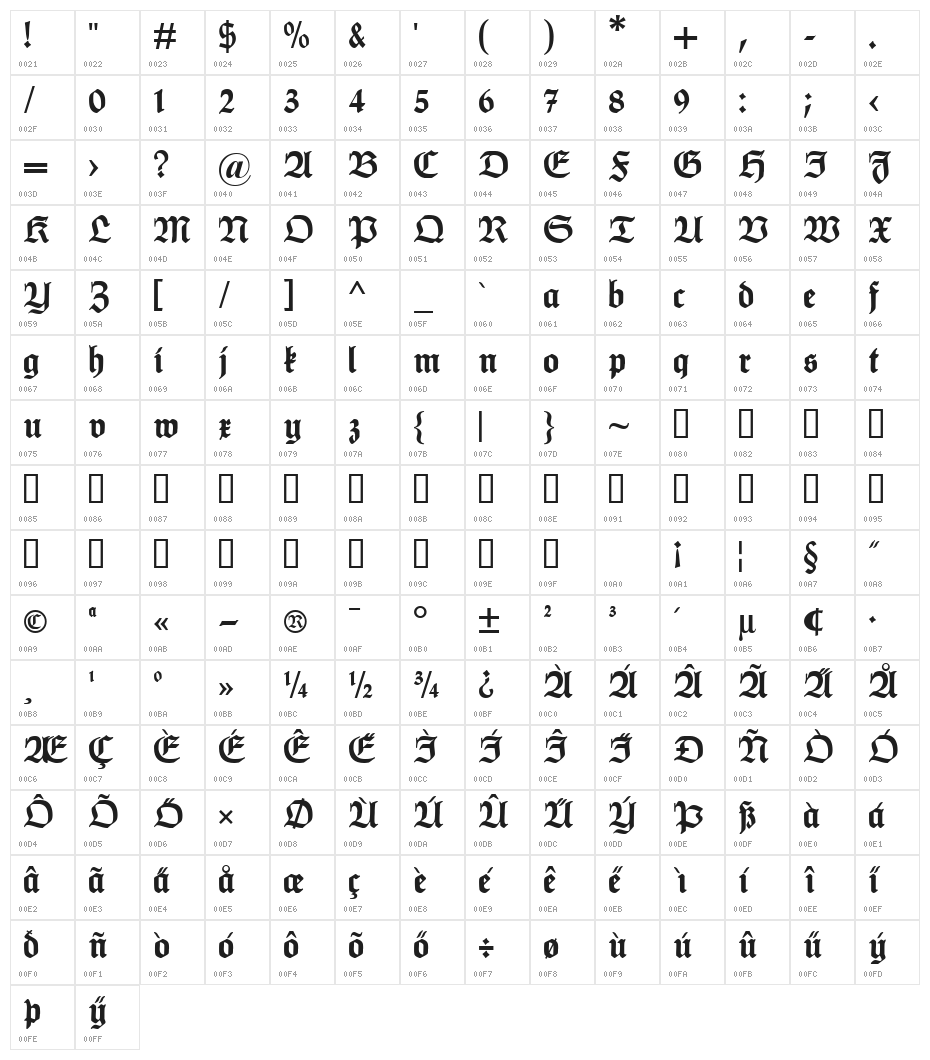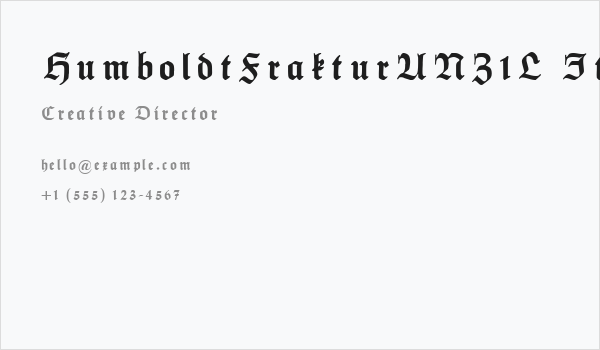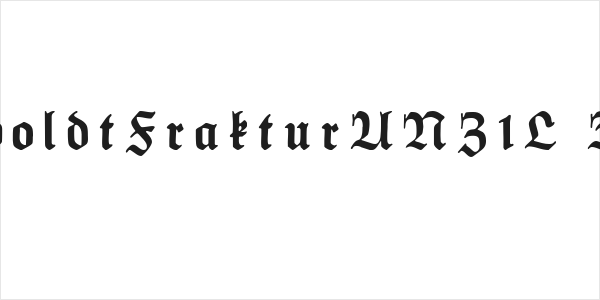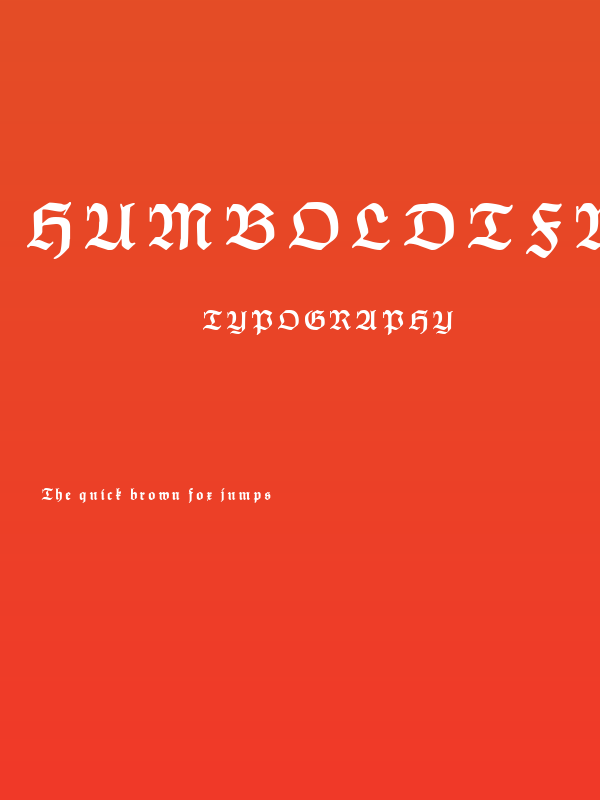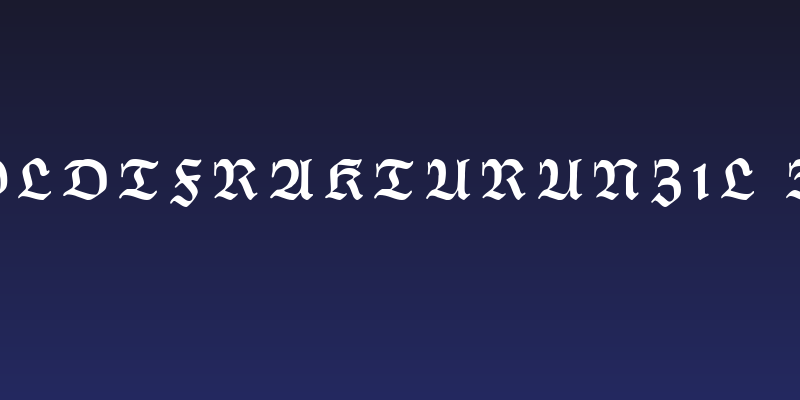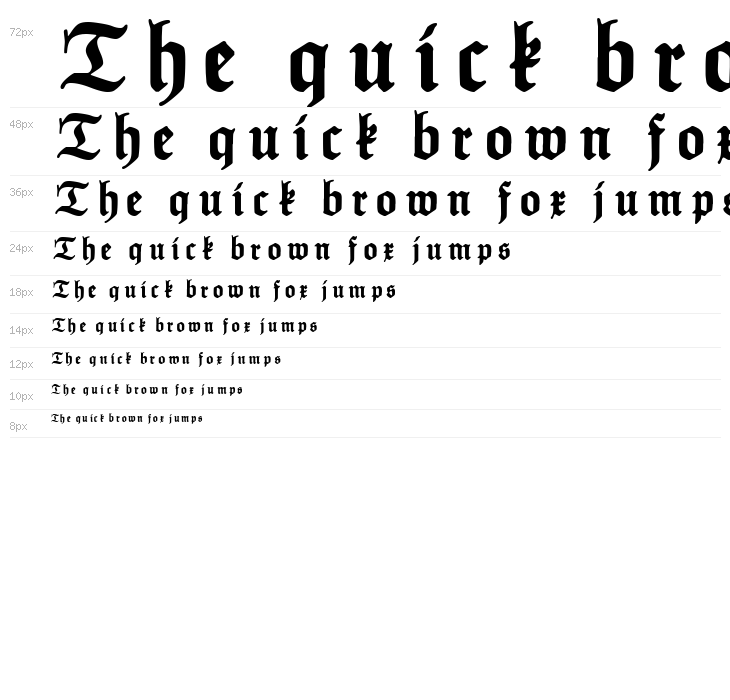
HumboldtFrakturUNZ1L Italic Font
HumboldtFrakturUNZ1L Italic Description
This font features a classic blackletter style, characterized by its ornate and intricate letterforms. The uppercase letters exhibit sharp, angular lines with a distinct medieval flair, while the lowercase letters maintain a consistent style with slightly more rounded edges. The numerals are bold and maintain the same decorative style, ensuring uniformity across all characters. The special characters are equally ornate, fitting seamlessly with the overall aesthetic. This font is ideal for projects that require a historical or traditional touch, offering a sense of elegance and sophistication.
Overall StyleClassic
Use CaseHeadlines, Logos, Decorative text
Proposed ProjectsSuitable for historical documents, wedding invitations, certificates, and branding that requires a traditional or gothic touch.